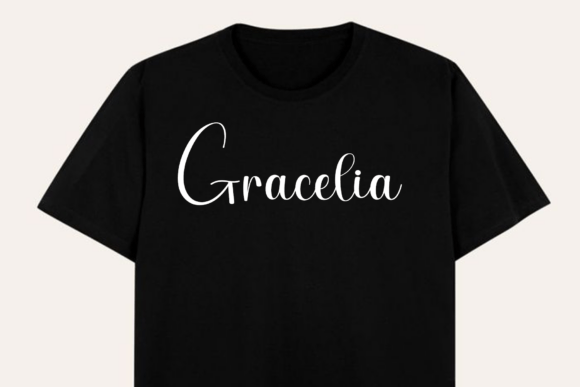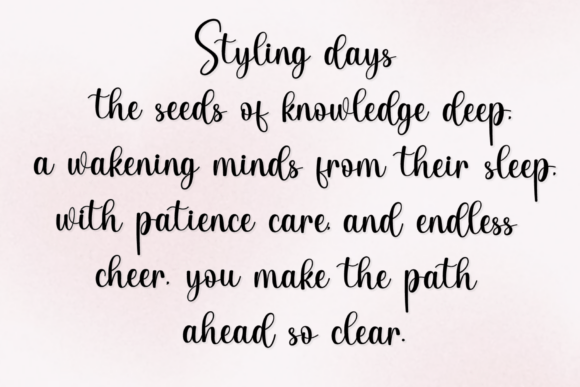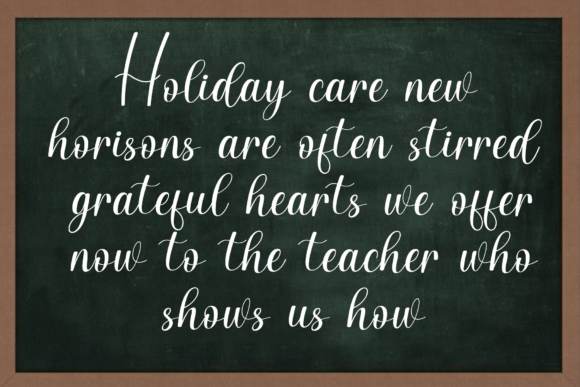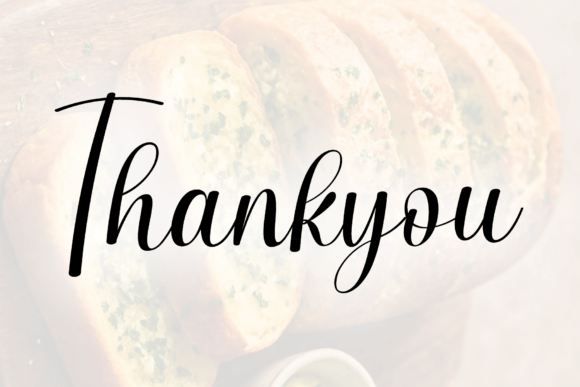
Introducing Deliciouse Font: A Timeless Handwritten Beauty
Are you a designer or crafter looking for a font that can add a touch of elegance and sophistication to your designs? Look no further than Deliciouse Font, a lovely and timeless handwritten font that is sure to make your designs come alive. In this article, we’ll take a closer look at Deliciouse Font and explore its features, benefits, and uses.
A Unique and Beautiful Touch
Deliciouse Font is a handwritten font that boasts a unique and beautiful touch. Every letter has been carefully crafted to ensure that it stands out from the crowd, making it perfect for creating eye-catching logos, branding, and quotes. The font’s unique characteristics will add a personal touch to your designs, setting them apart from others.
Deliciouse Font is an excellent choice for designers and crafters who want to add a touch of elegance and sophistication to their designs. Whether you’re creating logos, branding materials, or quotes, this font is sure to impress. Its timeless and classic look makes it suitable for a wide range of design projects, from modern and trendy to traditional and vintage.
Key Features of Deliciouse Font
- Handwritten font: Deliciouse Font is a handwritten font that adds a personal touch to your designs.
- Unique and beautiful touch: Every letter has a unique and beautiful touch that sets it apart from other fonts.
- Timeless and classic look: Deliciouse Font has a timeless and classic look that makes it suitable for a wide range of design projects.
- Elegant and sophisticated: This font adds an elegant and sophisticated touch to your designs, making them stand out from the crowd.
Benefits of Using Deliciouse Font
Using Deliciouse Font in your designs comes with a range of benefits, including:
- Increased visual appeal: Deliciouse Font adds a touch of elegance and sophistication to your designs, making them more visually appealing.
- Improved brand recognition: A unique and beautiful font like Deliciouse Font can help to improve brand recognition and establish your brand’s identity.
- Enhanced creativity: Deliciouse Font’s unique characteristics can inspire creativity and help you to think outside the box.
Uses of Deliciouse Font
Deliciouse Font is a versatile font that can be used in a wide range of design projects, including:
- Logo design: Deliciouse Font is perfect for creating eye-catching logos that make a lasting impression.
- Branding materials: This font is suitable for creating branding materials, such as business cards, brochures, and letterheads.
- Quote design: Deliciouse Font is ideal for creating inspirational and motivational quotes that are visually appealing.
In conclusion, Deliciouse Font is a lovely and timeless handwritten font that is perfect for designers and crafters who want to add a touch of elegance and sophistication to their designs. Its unique and beautiful touch, combined with its timeless and classic look, make it an excellent choice for a wide range of design projects. Whether you’re creating logos, branding materials, or quotes, Deliciouse Font is sure to make your designs come alive!